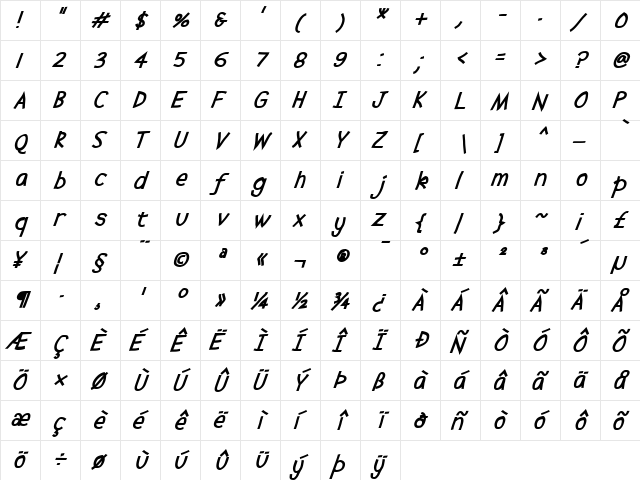
Abscissa Bold Italic
Design Context for Abscissa Typeface
Abscissa takes a measured approach to typography — its balanced proportions and neutral character make it a reliable workhorse for both digital and print work. The dynamic lean of this cut emphasises speed and emphasis in any layout. The heavy weight commands attention and anchors typographic hierarchies.